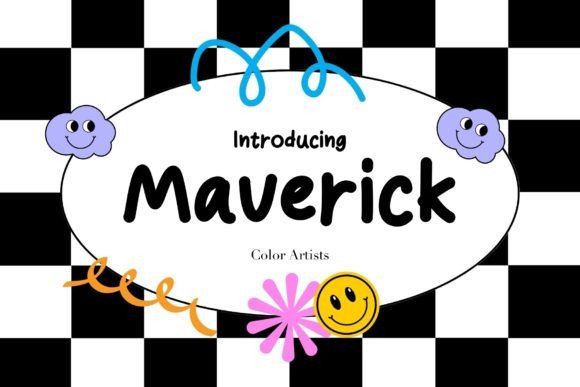
Unleash the Maverick within you and let your words sizzle with untamed energy! This electrifying script font is not for the faint-hearted; it's a bold and audacious declaration of your individuality. With its dynamic strokes and rebellious charm, Maverick Font is the perfect weapon in your creative arsenal, ready to conquer the world of modern resumes.
Step into the realm of the unconventional and watch as your resume transforms into a captivating masterpiece. Maverick Font will ignite a fire in the eyes of recruiters, leaving them spellbound by your boldness. Its free-spirited nature dances across the page, captivating the senses and leaving an indelible mark on the minds of those who behold it.
Gone are the days of bland, forgettable resumes that fade into obscurity. With Maverick Font as your ally, you'll craft a resume that demands attention, commands respect, and opens doors to new opportunities. Its every twist and turn is a testament to your confidence and unwavering belief in your abilities.
So, why settle for ordinary when you can embrace the extraordinary? Don't let your resume be just another face in the crowd. Grab Maverick Font by the reins and ride it to the forefront of the competition. Let your words dance with passion, your personality shine through, and your dreams take flight.